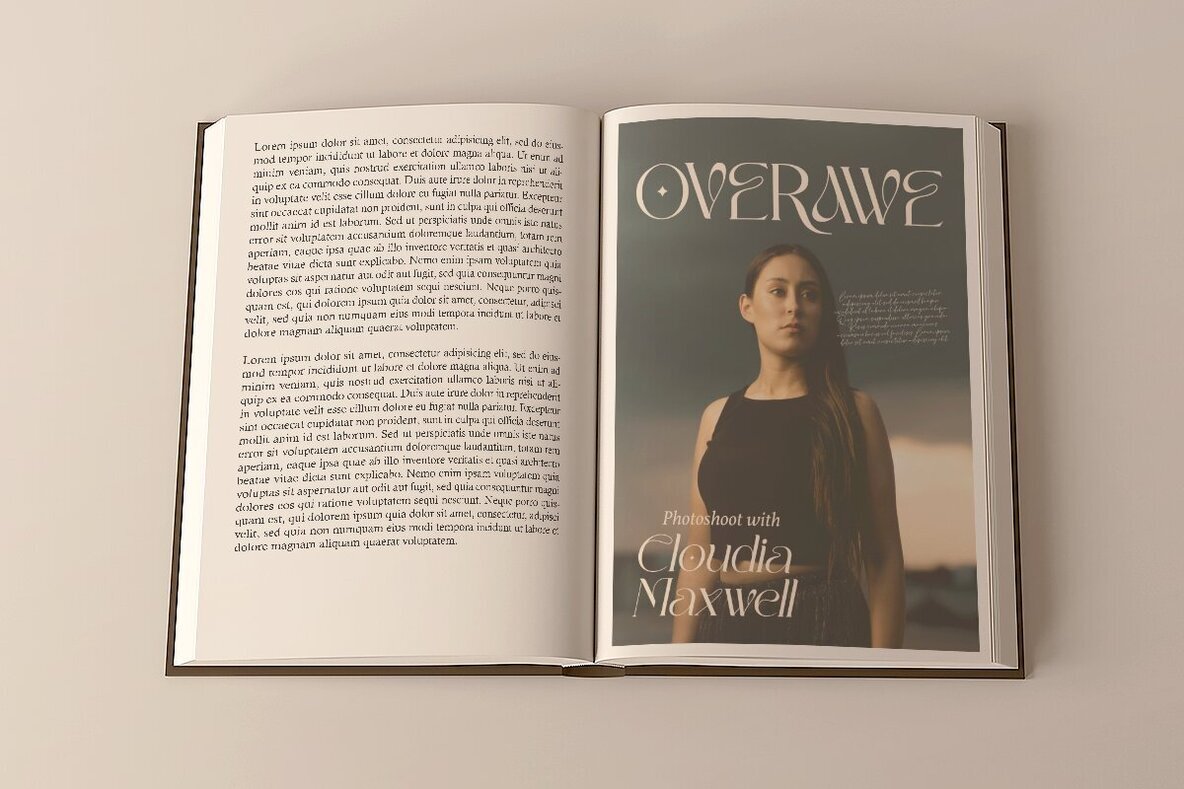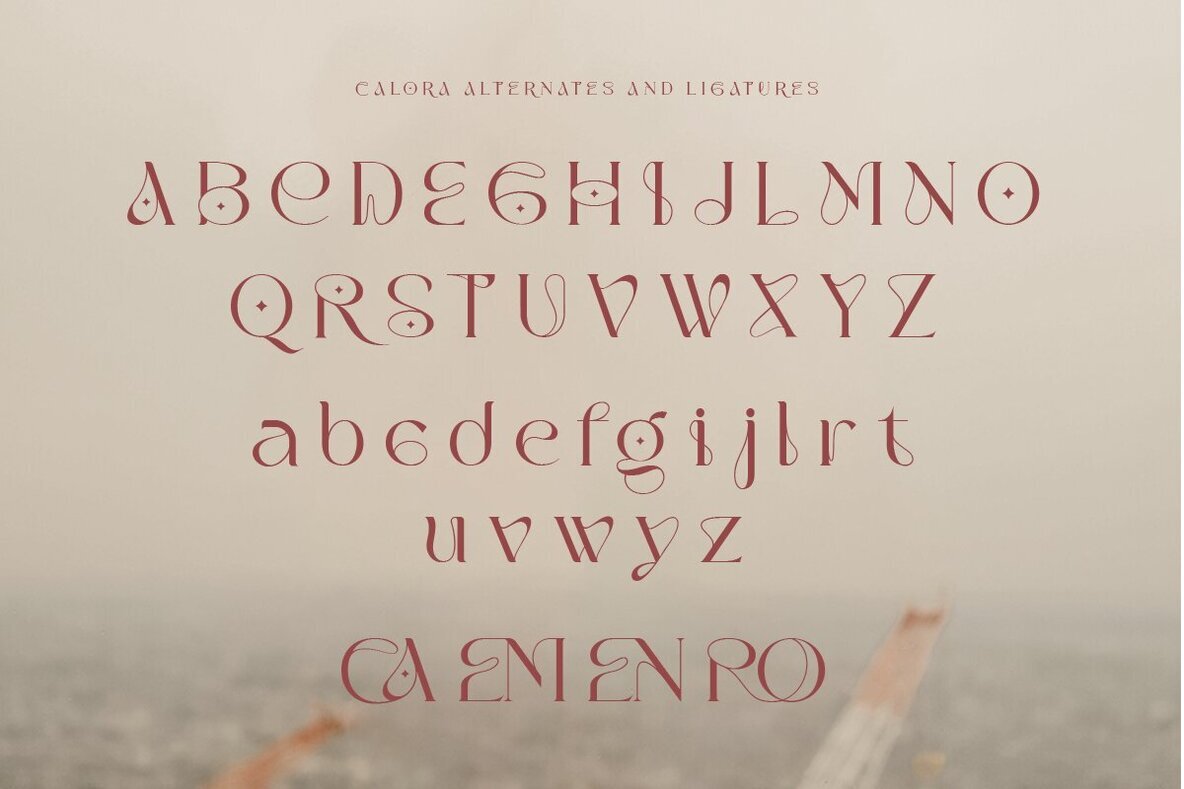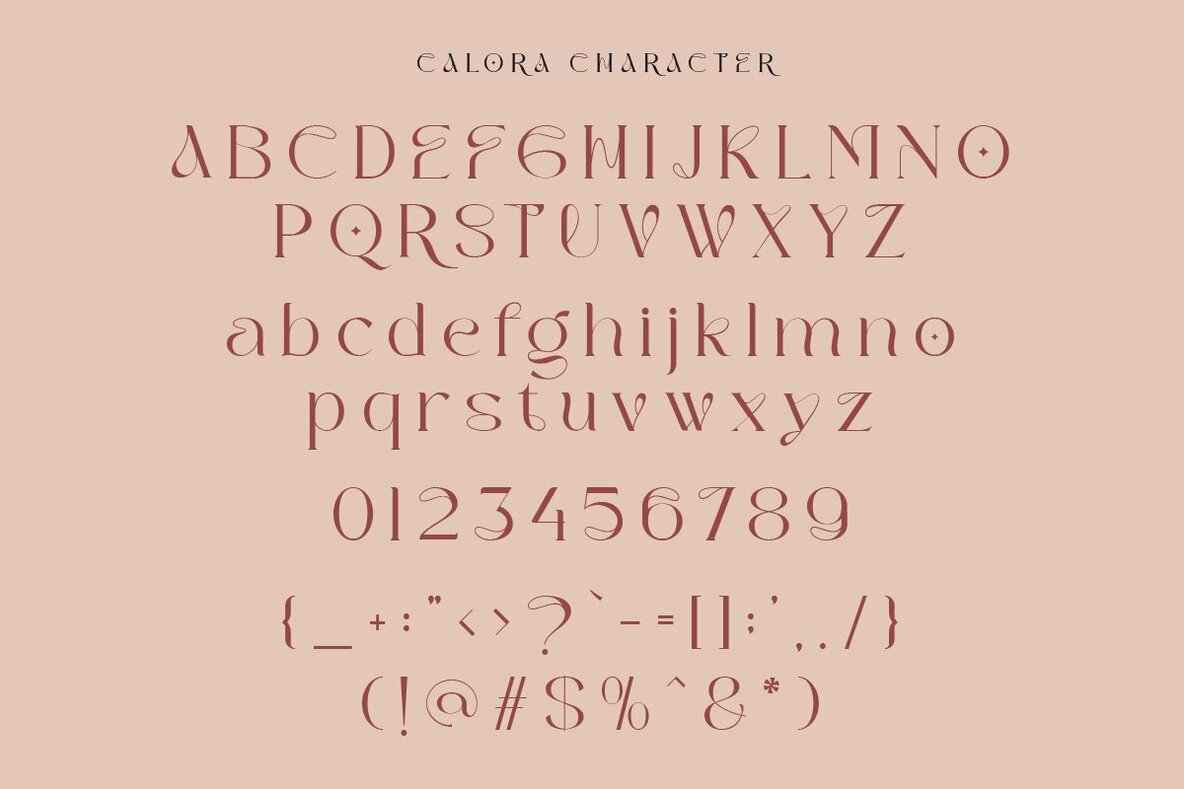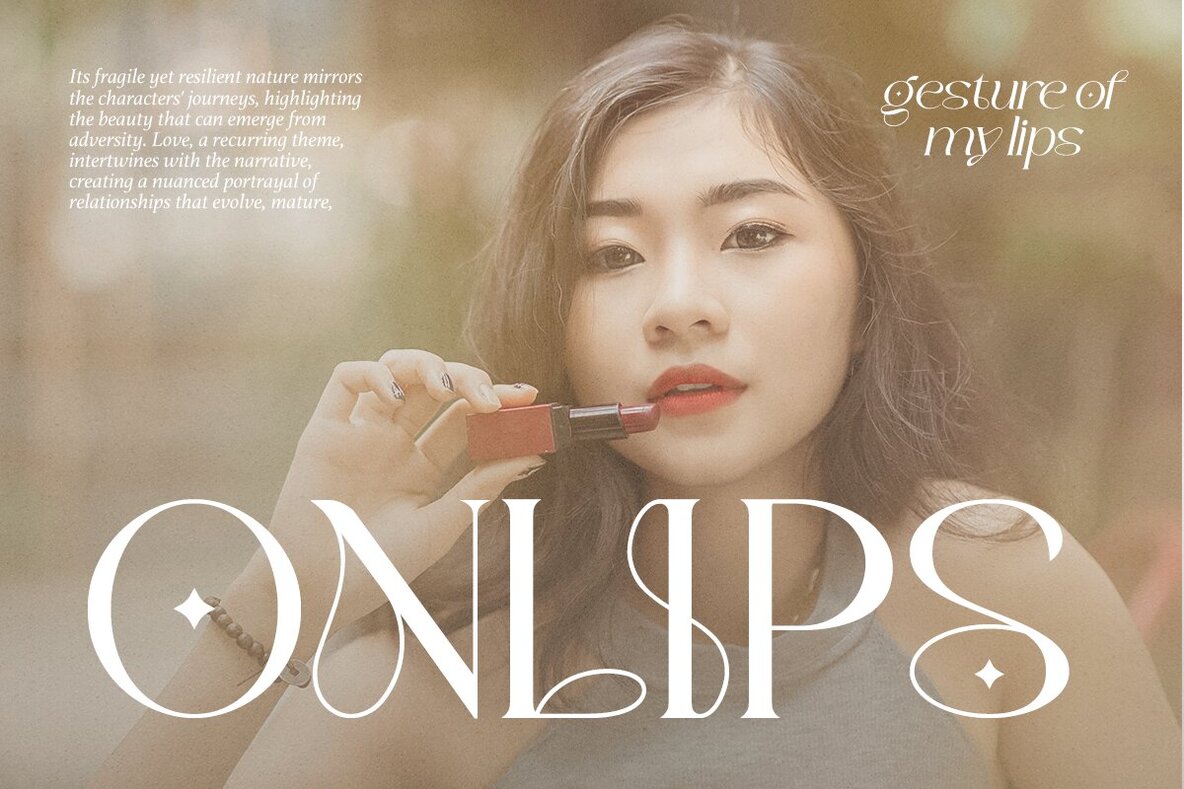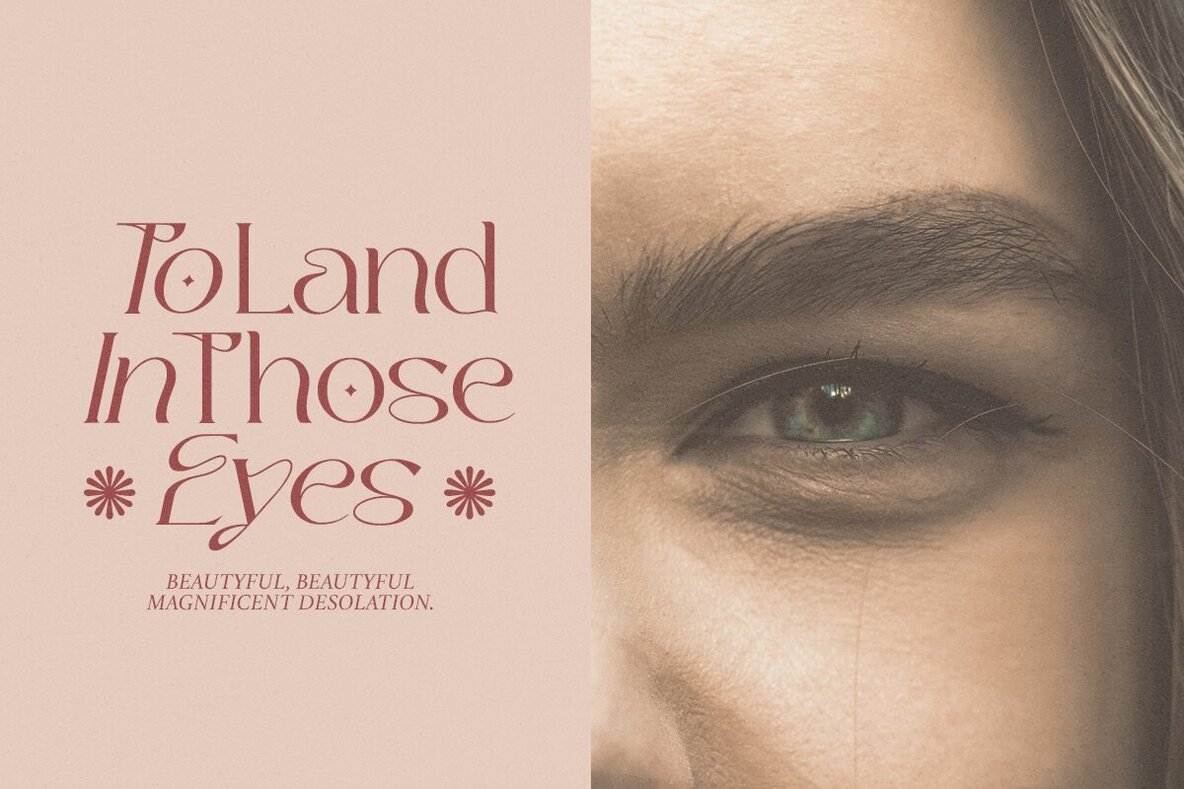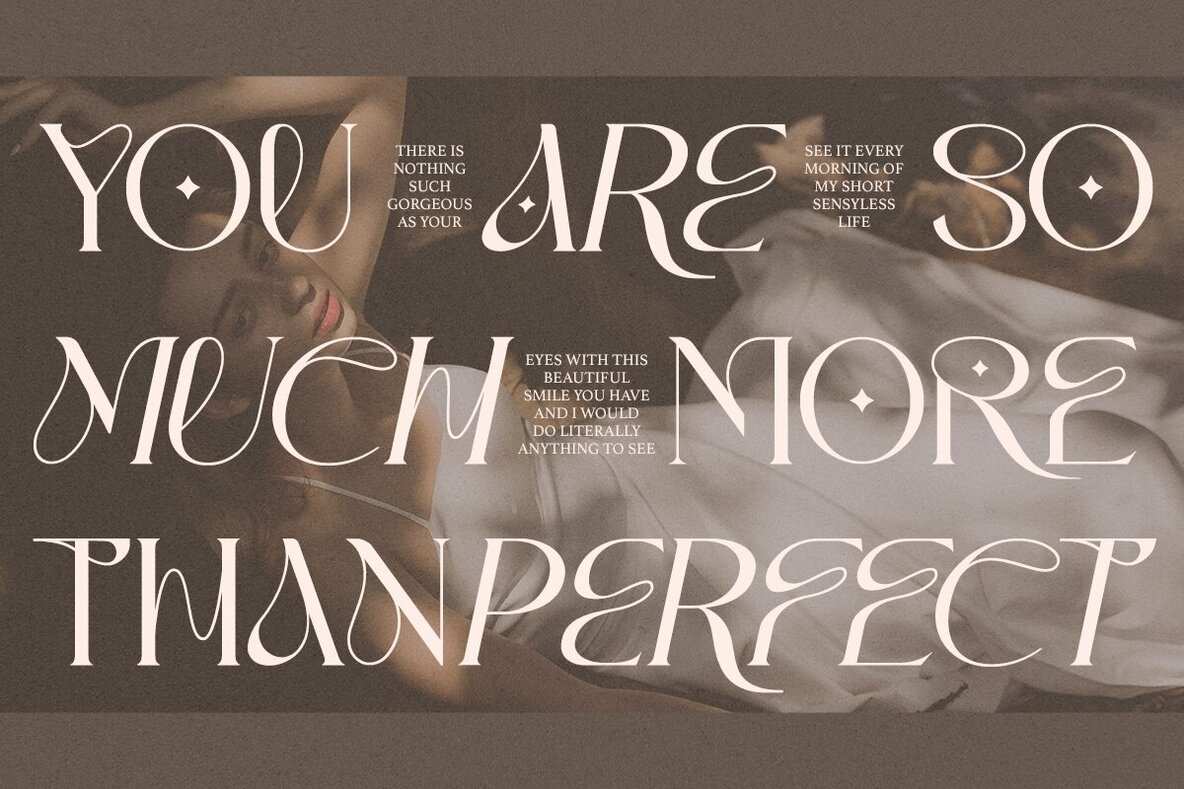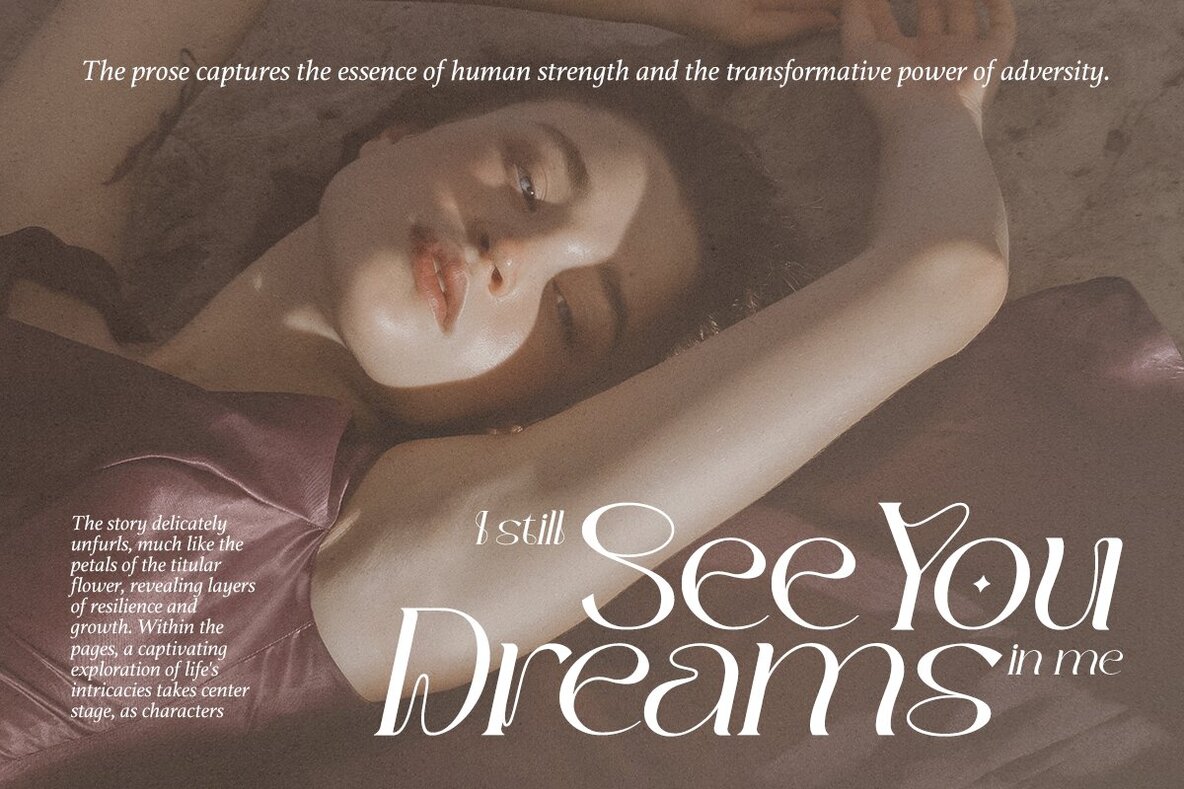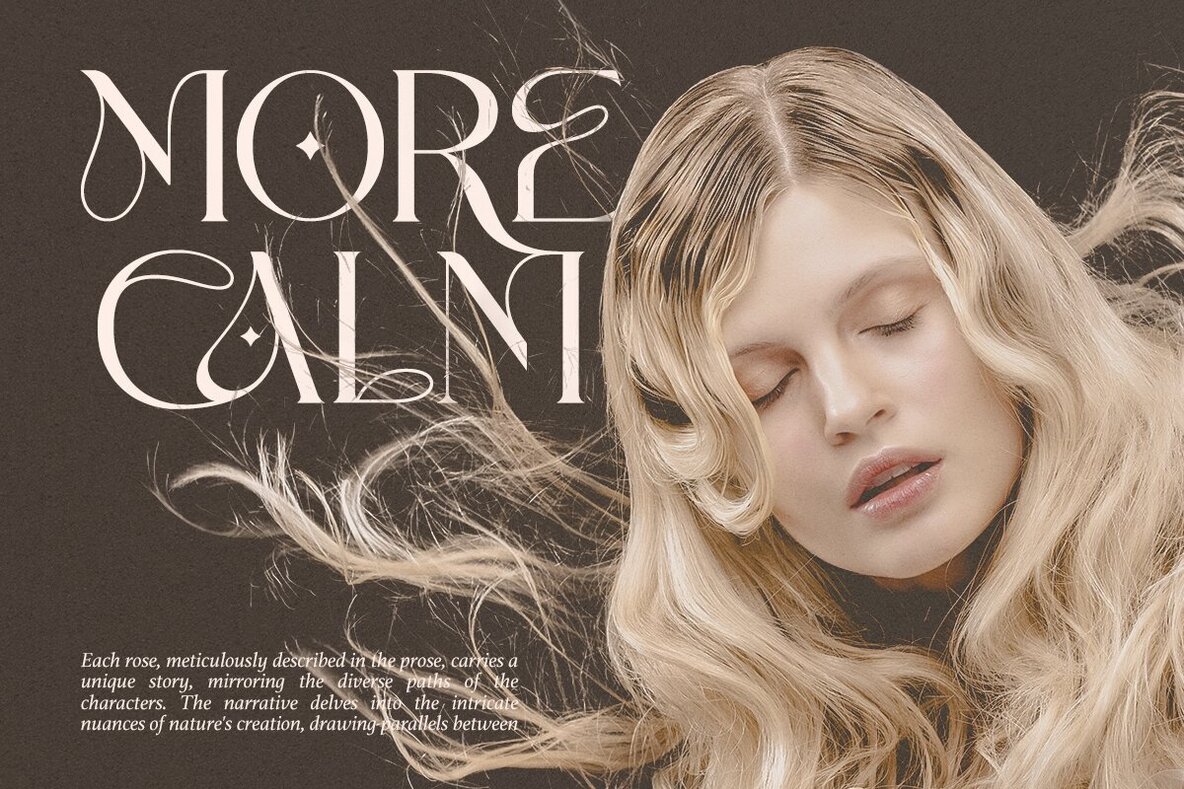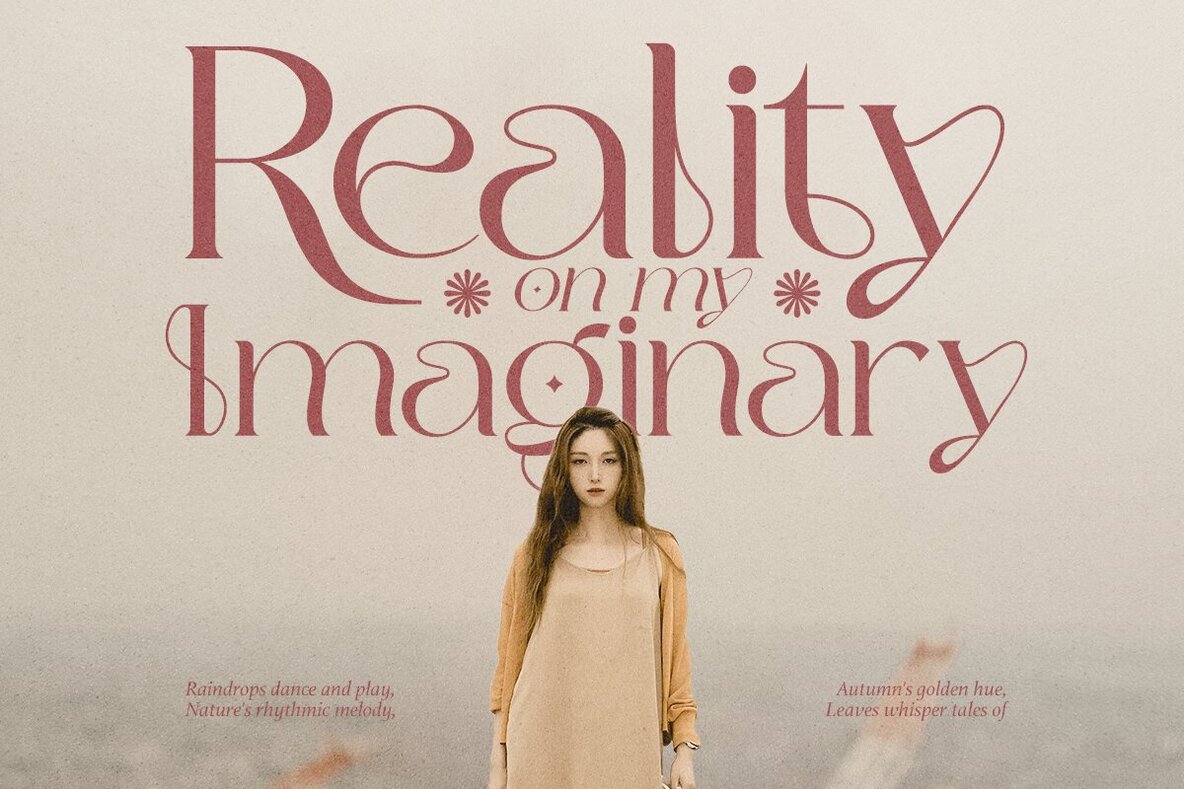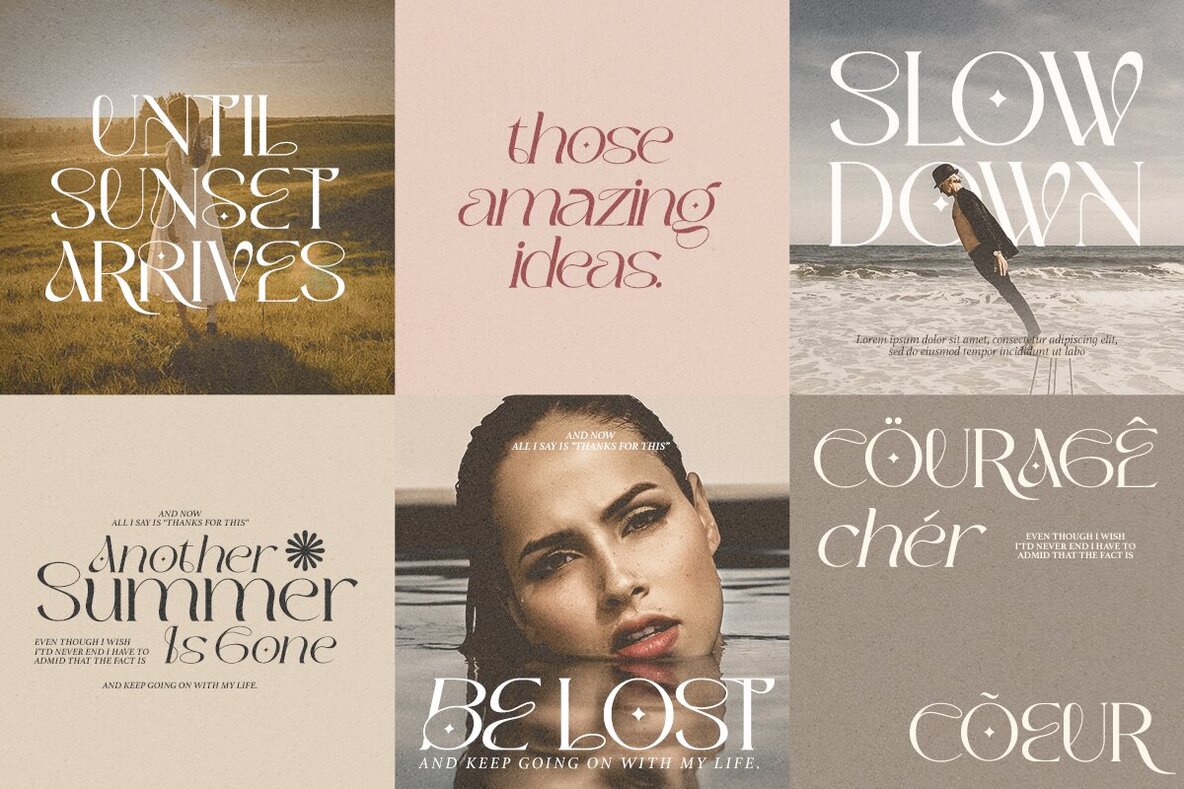
Calora Font
Calora is a serif font that balances playful curves with a sophisticated demeanor. Ideal for creating elegant and luxurious logos, it suits a variety of design needs including classy editorial layouts, women's magazines, fashion and cosmetic brands, fashion promotions, modern advertising, invitation cards, art quotes, home decor, book titles, special events, and more.Calora: A Playful Yet Elegant Serif
Calora Features